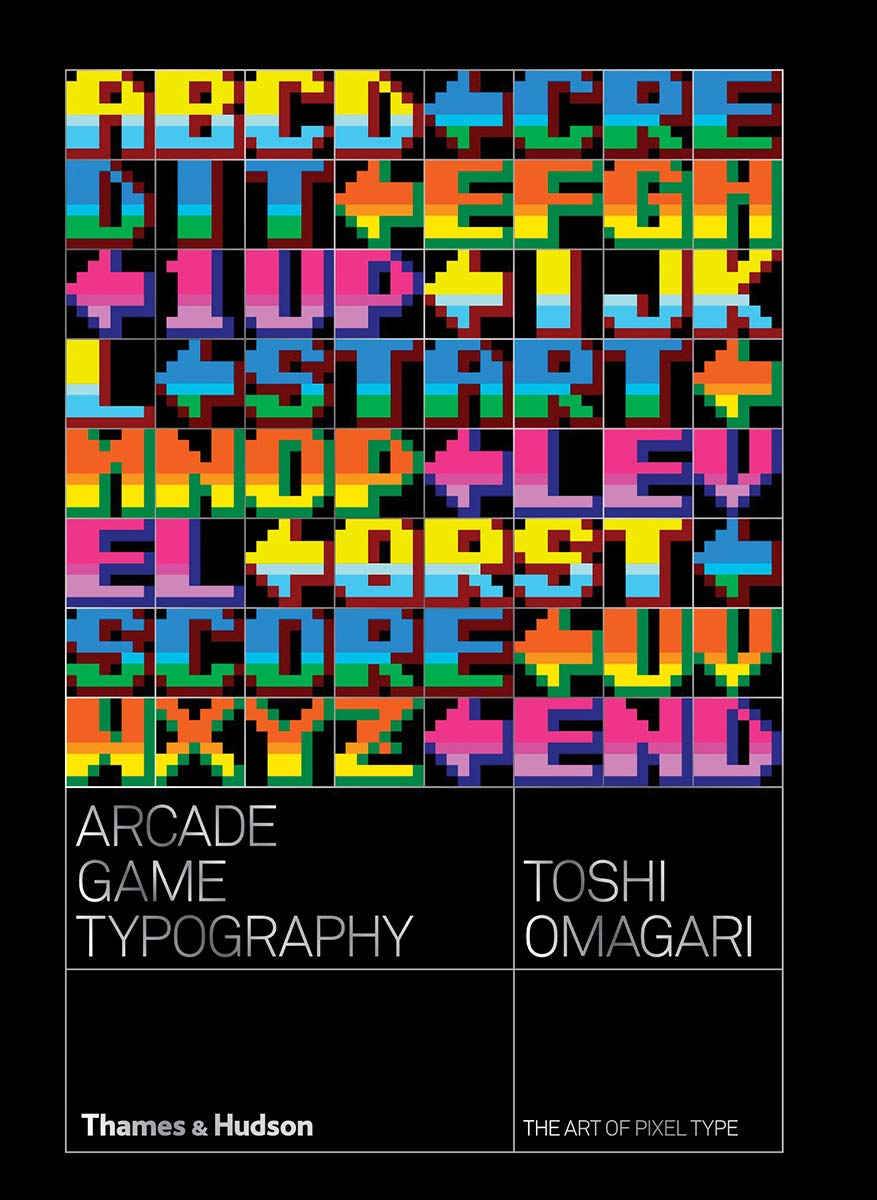
Arcade Game Typography: The Art of Pixel Type
The first book of its kind – a definitive and beautifully designed survey of 70s, 80s and early 90s arcade video game pixel typography
Arcade Game Typography presents readers with a fascinating new world of typography – the pixel typeface. Video game designers of the 70s, 80s and 90s faced colour and resolution limitations that stimulated incredible creativity: with letters having to exist in an 8x8 square grid, artists found ways to create expressive and elegant character sets within a tiny canvas.
Featuring pixel typefaces carefully selected from the first decades of arcade video games, Arcade Game Typography presents a previously undocumented ‘outsider typography’ movement, accompanied by insightful commentary from author Toshi Omagari, a Monotype typeface designer himself, and screenshots of the type in use. Exhaustively researched, this book gathers an eclectic typography from hit games such as Super Sprint, Pac-Man, After Burner, Marble Madness, Shinobi, as well as countless lesser- known gems. The book presents its typefaces on a dynamic and decorative grid, taking reference from high-end type specimens while adding a suitably playful twist. Unlike print typefaces, pixel type often has bold colour ‘baked in’ to the characters, so Arcade Game Typography looks unlike any other typography book, fizzing with life and colour.
'The first book of its kind … it gives an all-encompassing and incredibly well-researched insight into an undocumented movement characterised by “outsider typographers”'
'A definitive guide to 70s, 80s and early 90s arcade game pixel typography'
'Fantastic'
'A deep dive into the distinctive typefaces of the golden age of arcade games'